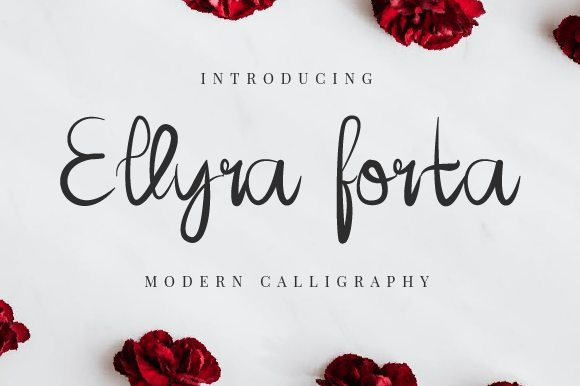
Ellyra Forta Font
Free Ellyra Forta Modern Calligraphy Font Ellyra Forta is an elegant and flowing handwritten font. It features a varying baseline, smooth lines, gorgeous glyphs and stunning alternates. Not too thin and not too thick, balanced and varied, Ellyra Forta was designed to enhance the beauty of your projects. File Included : OTF files Read Me